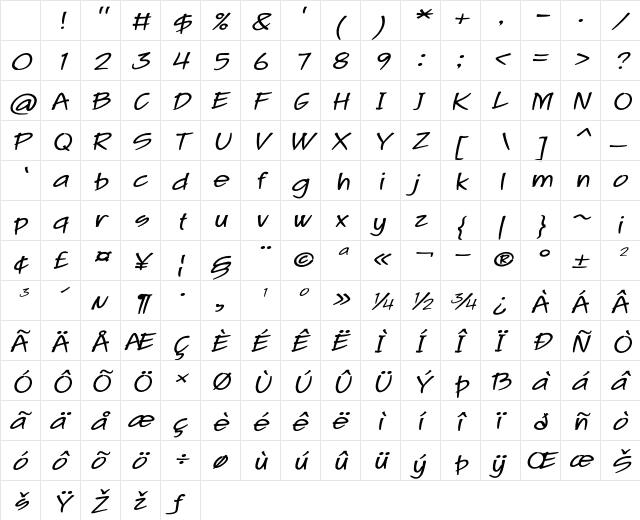
Complete Faranvale Expanded Italic glyph index. Displaying only characters natively supported by Faranvale Expanded Italic font.
Faranvale is a composed and adaptable typeface that performs quietly and consistently across a wide range of design contexts. The slanted form adds forward momentum and visual energy.
Pro Tip: Use Faranvale for emphasis, pull quotes, and subheadings where its slanted energy can add rhythm to the layout.